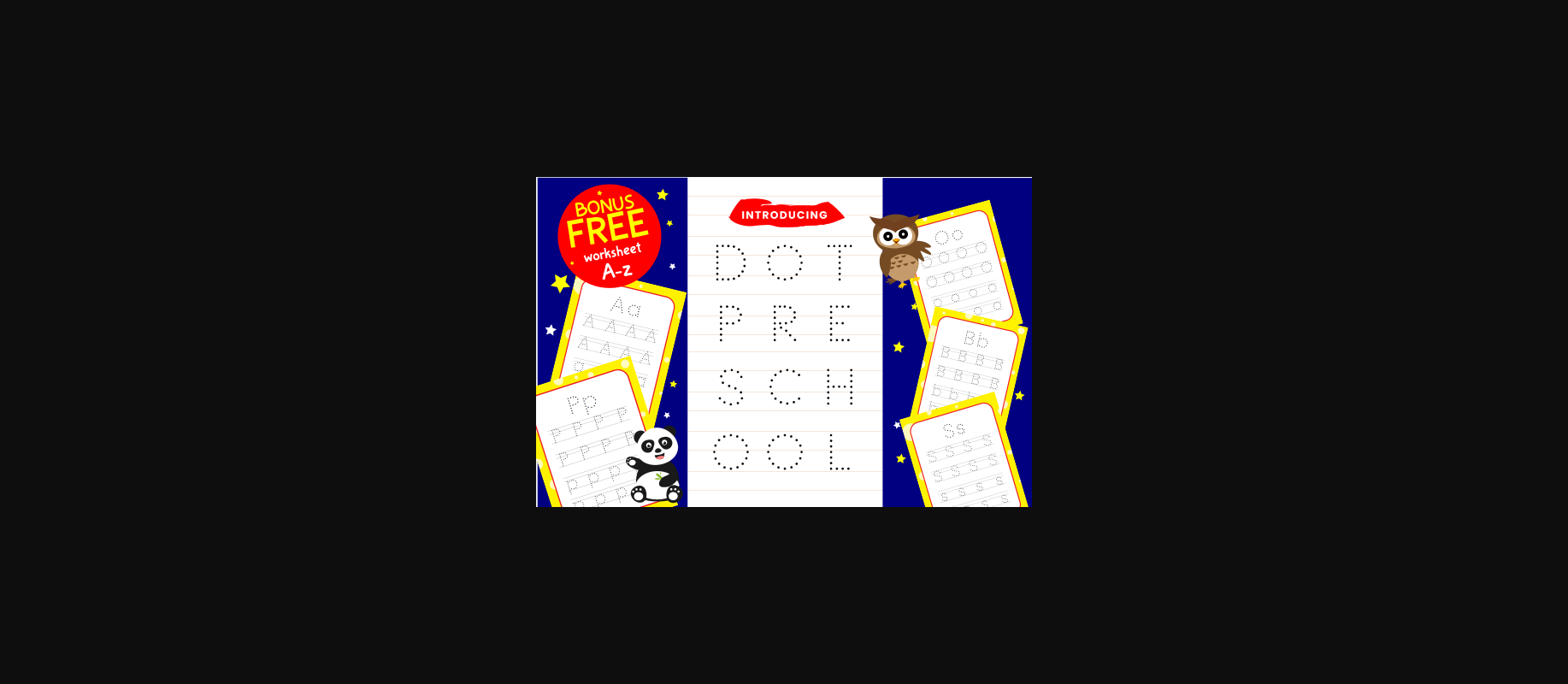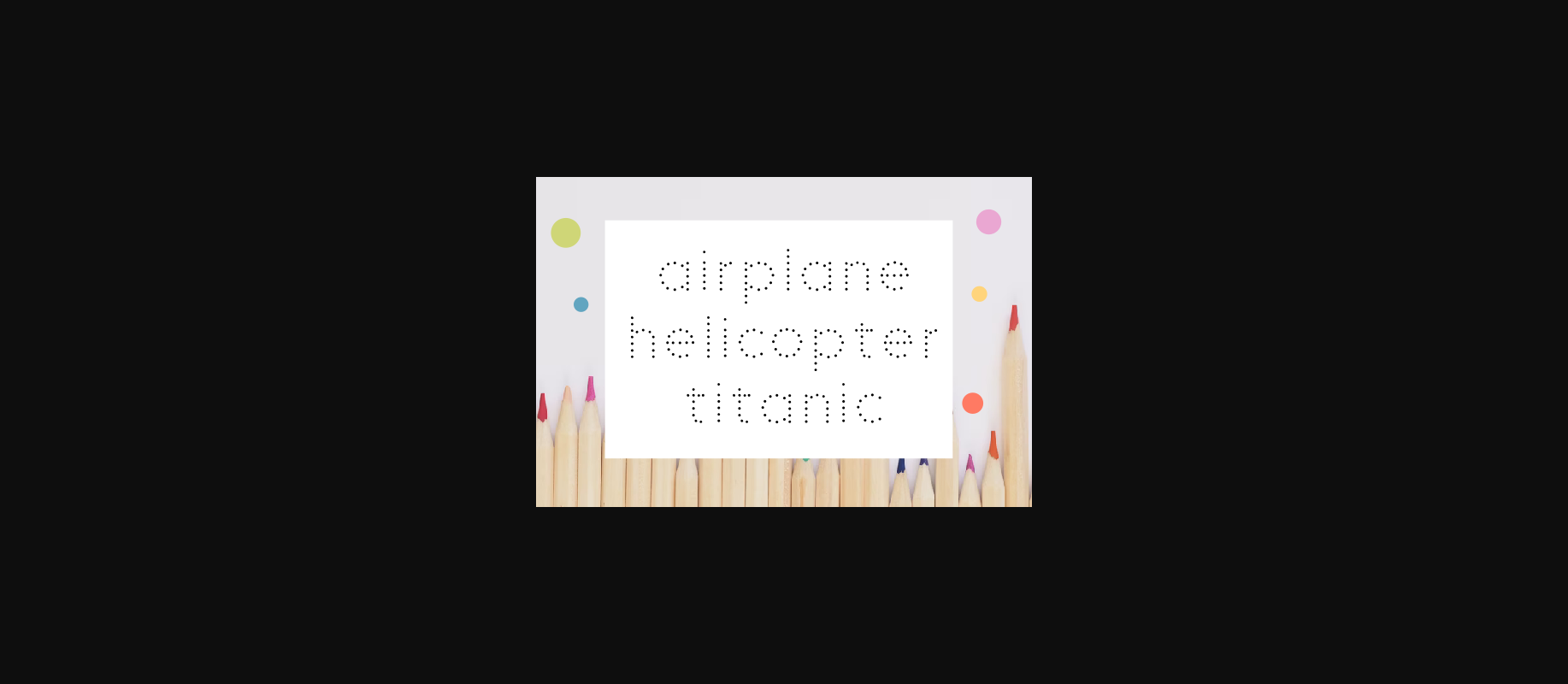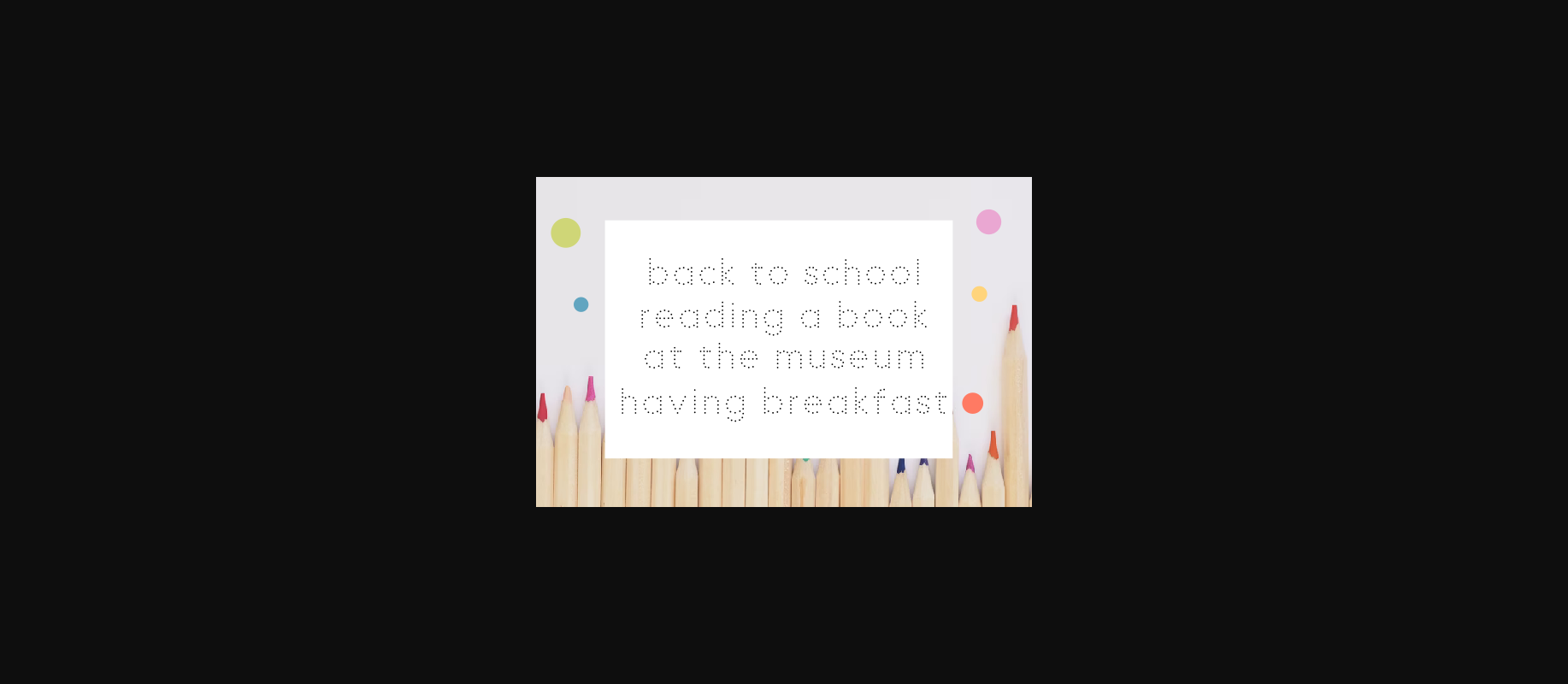
Dot Preschool is a simple and useful decorative font, that can be added to any kindergarten material. It is easy to use and adaptable to various kinds of teaching formats.